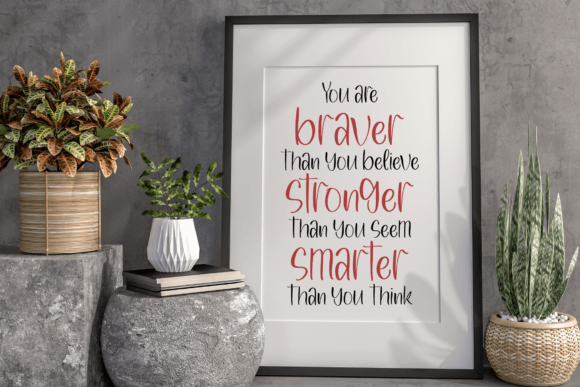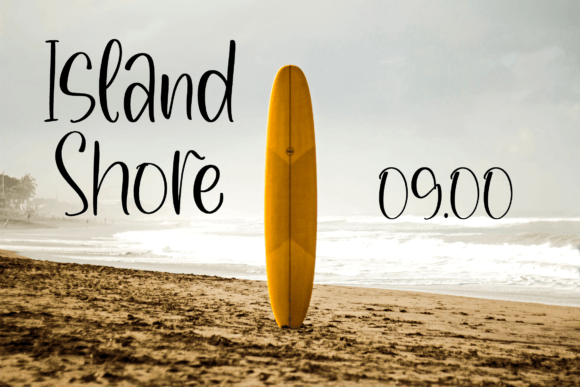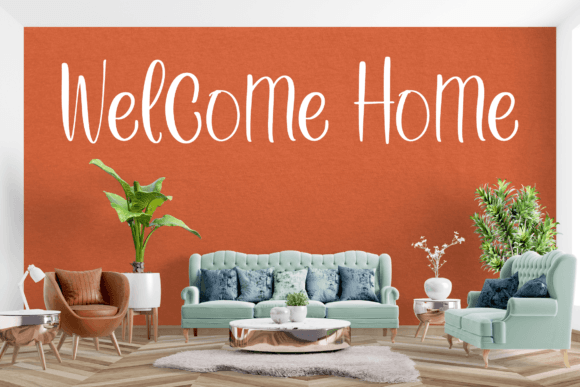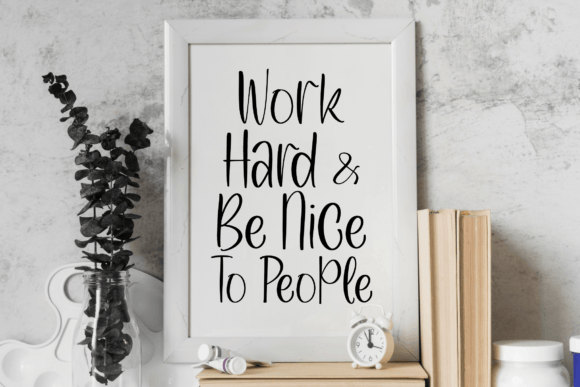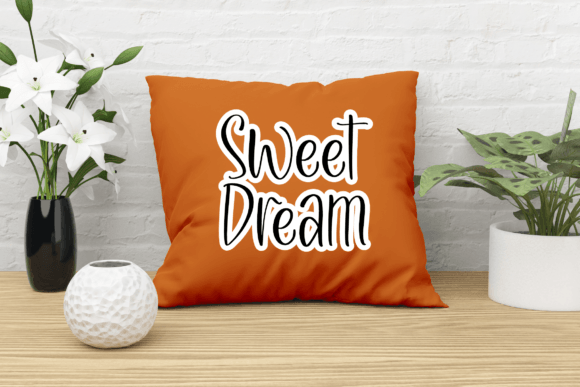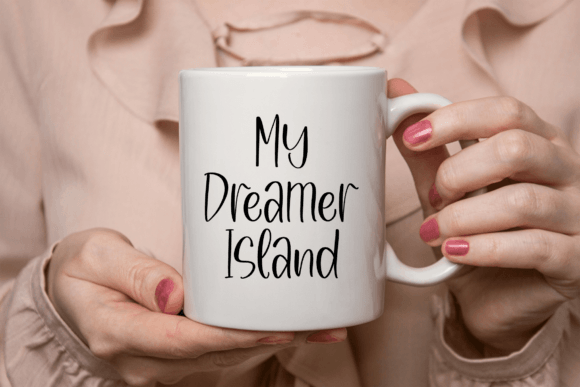
When Words Become Art
As designers, we’ve all been there – staring at a blank canvas, trying to bring an idea to life. It’s the moment when the perfect font can make all the difference. Imagine the thrill of seeing your words flow effortlessly, like a beautiful handwritten note from a loved one.
Enter the Charlotte Lucky Font, a stunning handwritten script that’s sure to elevate any project. With its elegant curves and playful charm, it’s perfect for logos, branding projects, and homeware designs. Whether you’re a seasoned designer or just starting out, the Charlotte Lucky Font is a valuable addition to your toolkit.
So why should you fall in love with the Charlotte Lucky Font? For starters, it’s incredibly versatile, suitable for a wide range of projects from product packaging to book covers. Its beauty lies in its simplicity, making it easy to use and customize to suit your unique style.
Key Features of Charlotte Lucky Font
- Unique Characteristics: Charlotte Lucky Font features a mix of modern and vintage elements, with intricate details and a touch of elegance.
- Font Metrics: Charlotte Lucky Font has a x-height of 600 units and an ascender height of 900 units.
Charlotte Lucky Font Review
Overall, I think Charlotte Lucky Font is a charming and elegant font that could work well for certain projects.
- ✨ The font has a nice balance of modern and vintage elements, making it suitable for a wide range of design applications.
- ✨ The font’s x-height is well-designed, making it easy to read and clear.
- ✨ The font supports a wide range of languages, including Latin, Greek, and Cyrillic scripts.
However, there are some limitations:
- ⚠️ The font’s italic and bold styles could be improved for better legibility.
- ⚠️ The font may not be suitable for large block of text, as the spacing between lines can be a bit tight.
- ⚠️ The font’s weight range is limited, which may not be ideal for projects that require a lot of weight variation.
Overall, I would give Charlotte Lucky Font 3.5 out of 5 stars. While it’s a lovely font, its limitations may make it less suitable for certain projects. However, with some careful usage and pairing with other fonts, it can be a great addition to your design toolkit.
Tips: Use Charlotte Lucky Font for titles and headings to add a touch of elegance and sophistication to your design.
Tips: Use Charlotte Lucky Font for intricate typography and creative designs, such as wedding invitations or greeting cards.
Tips: Use Charlotte Lucky Font for titles and headings in presentations or documents to add a touch of professionalism and sophistication.
Charlotte Lucky Font is ideal for:
- Greeting cards and gift tags
- Business cards and presentations
The recommended font size for optimal readability of Charlotte Lucky Font is between 12pt and 24pt. However, this may vary depending on the specific design requirements and the intended audience. Experiment with different font sizes to achieve the best results.